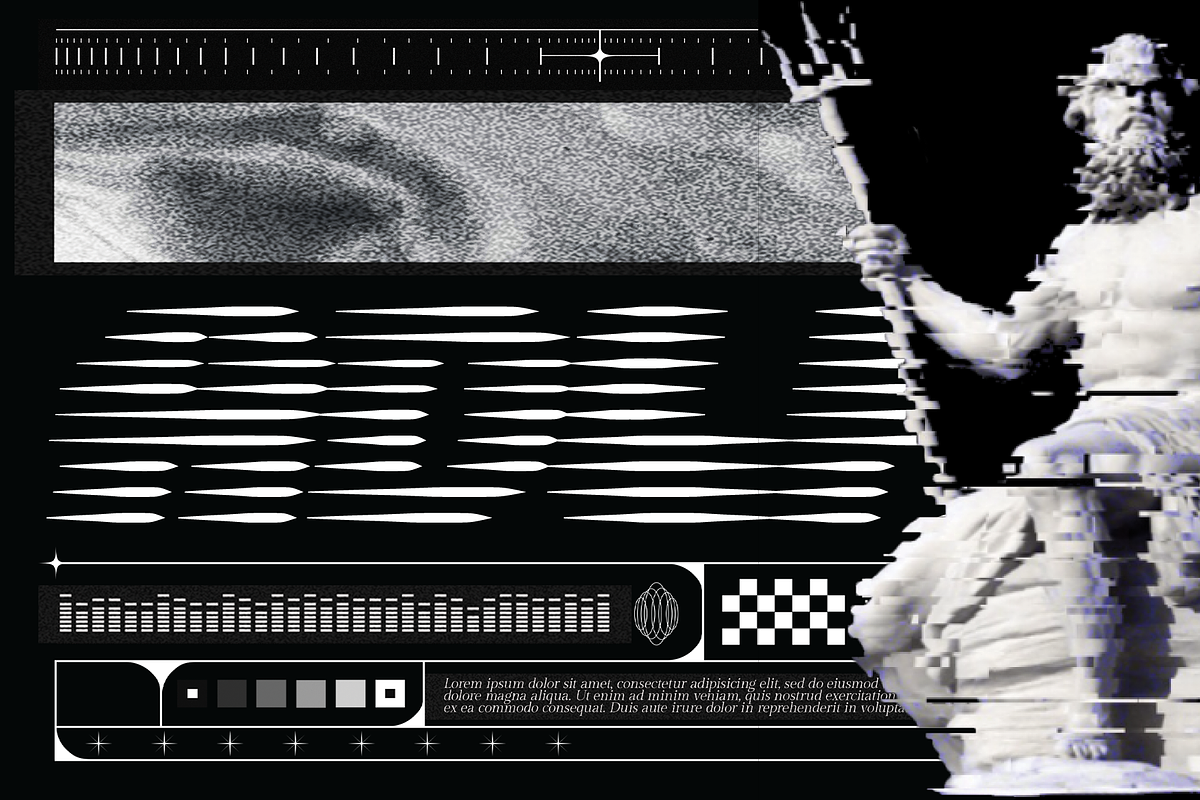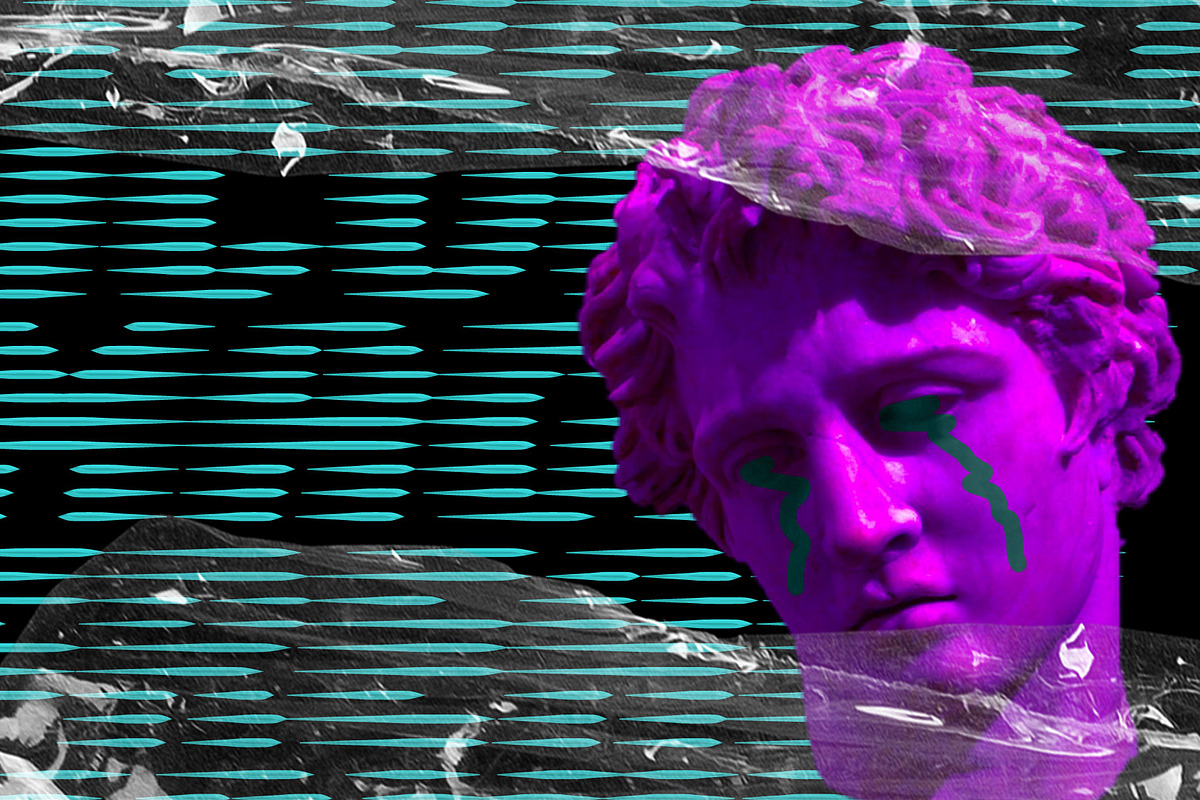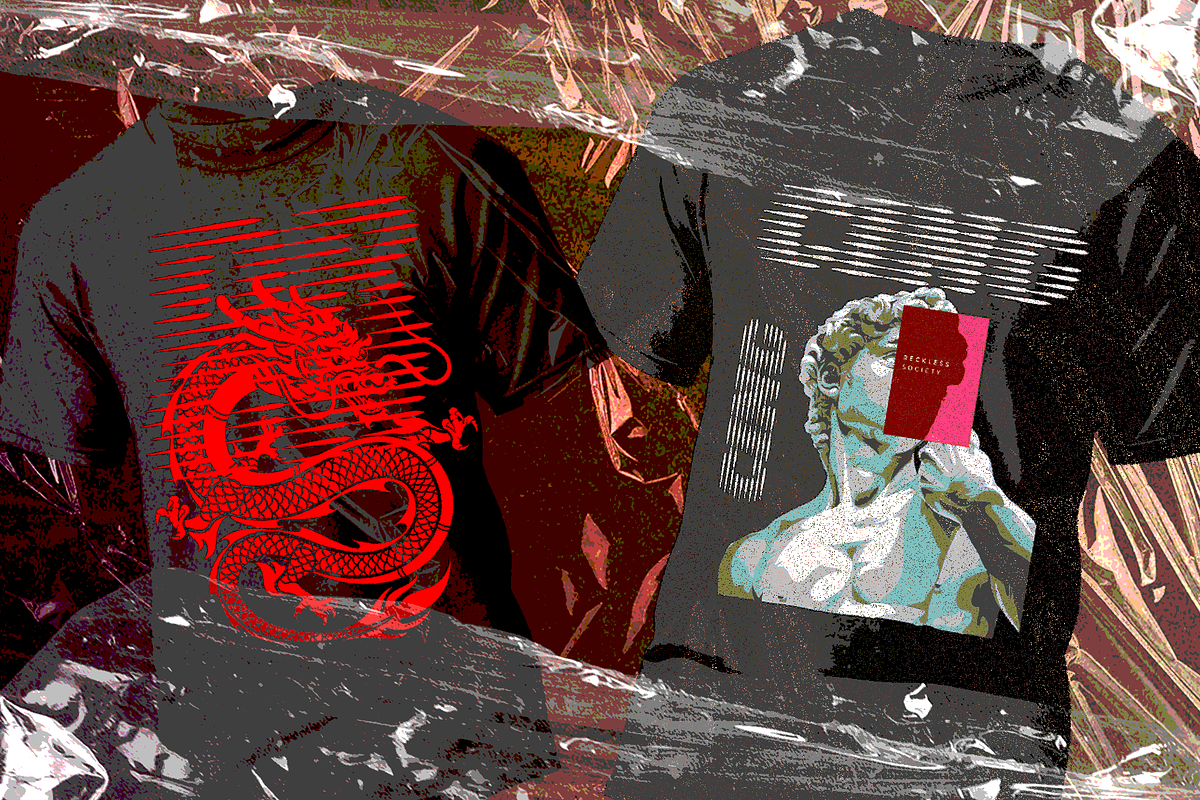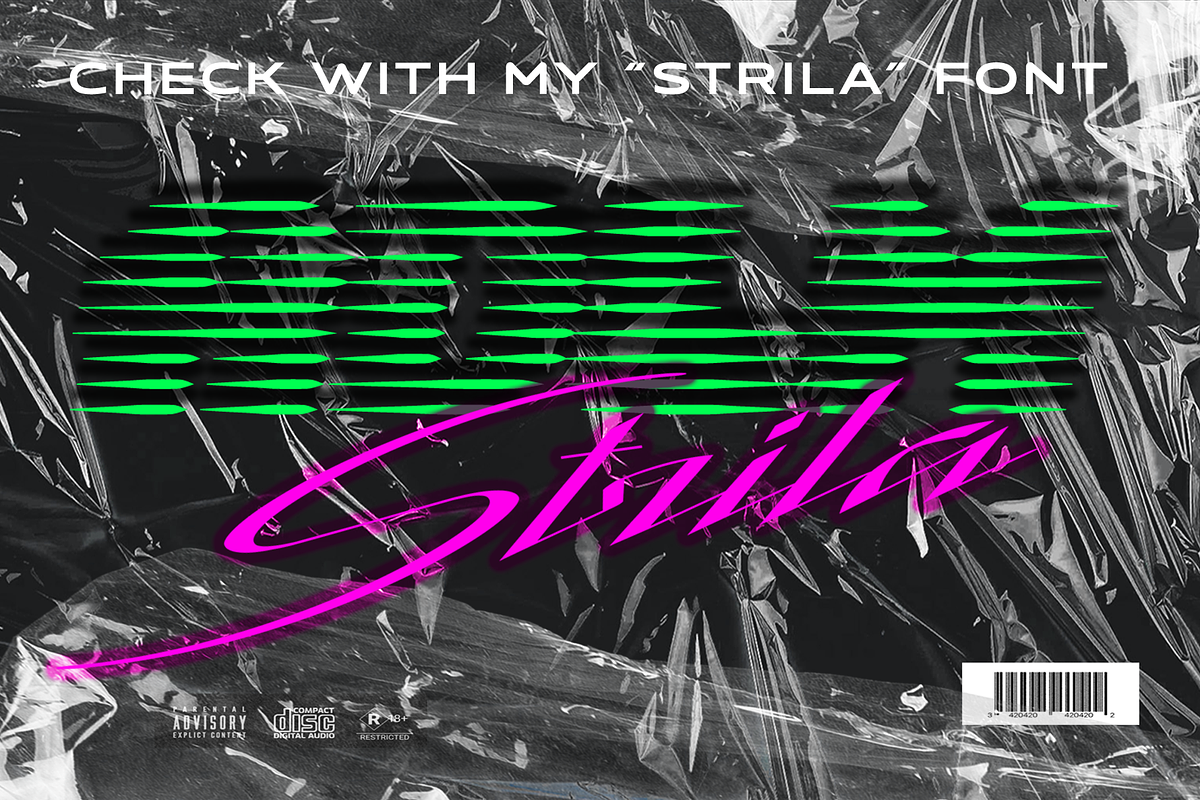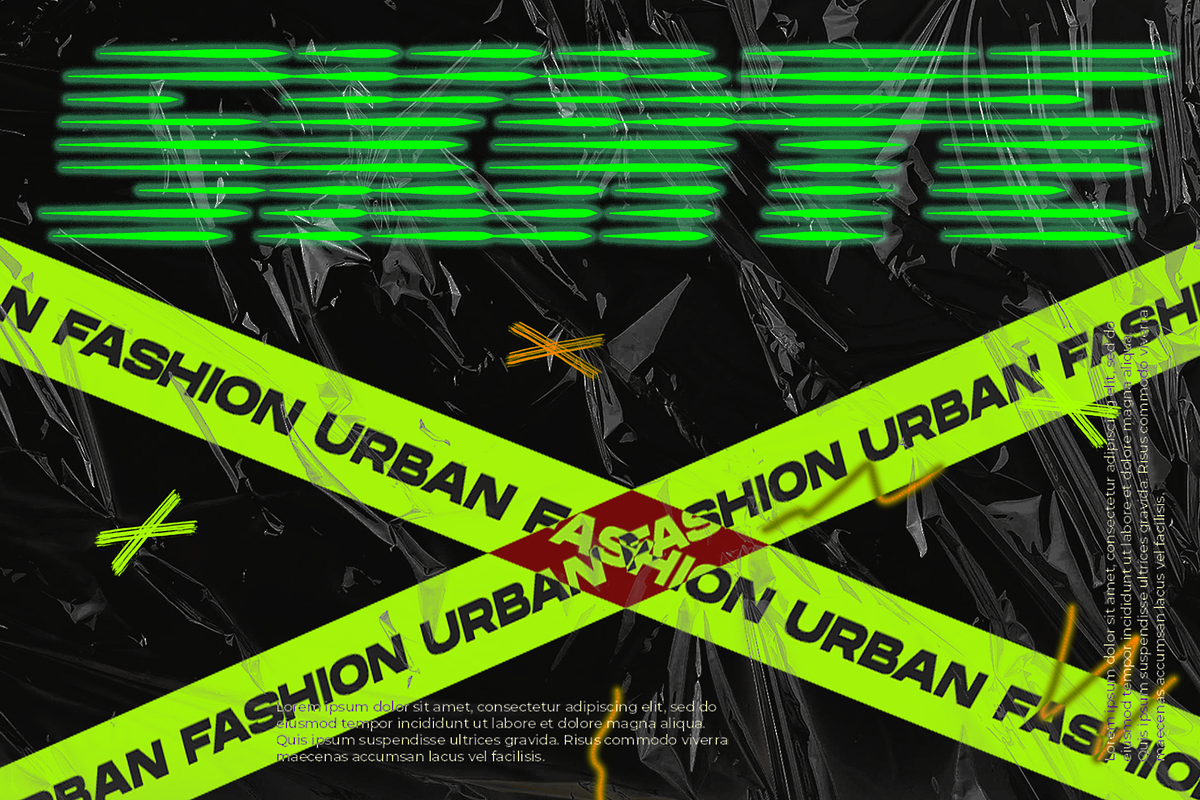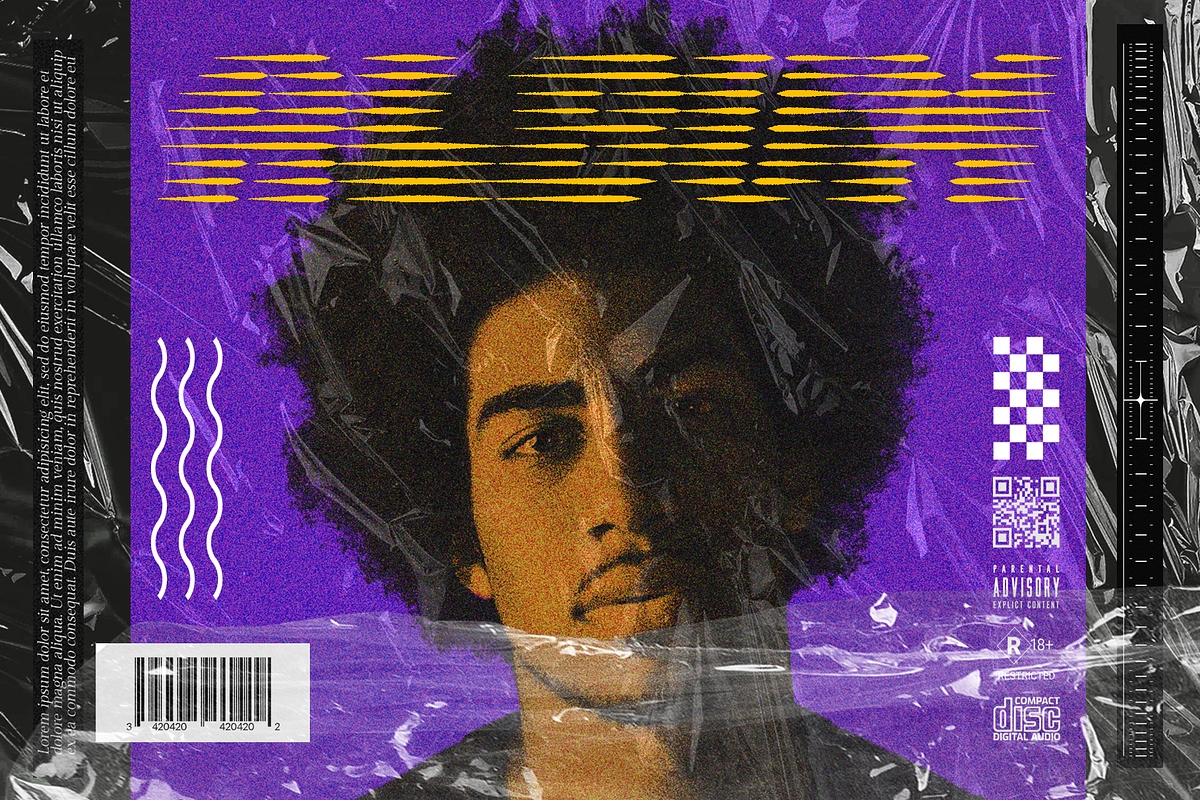
Adlm, Display Neon Style Font
Adlm is a cool, robotic styled display font. This font is ideal for logos/names and pretty much anything else that requires a unique touch. it can works perfectly in music, sport and art industry.